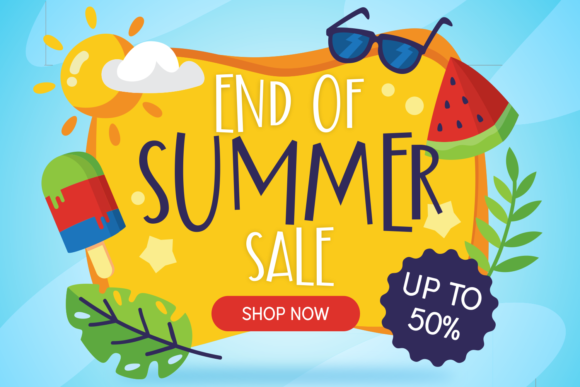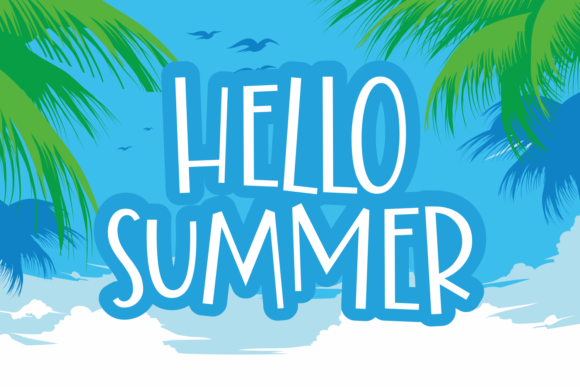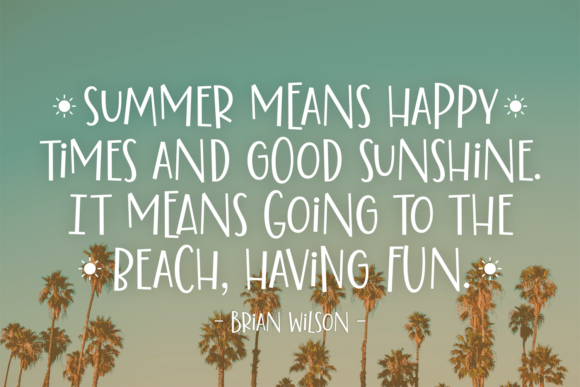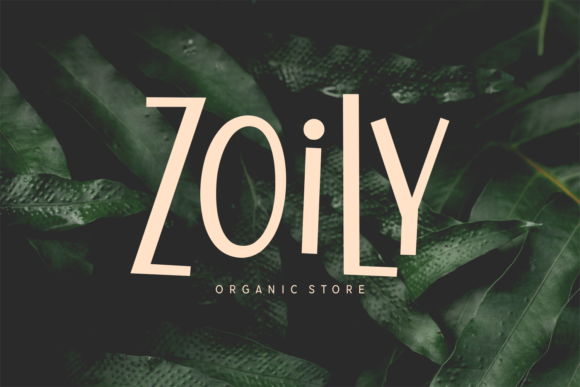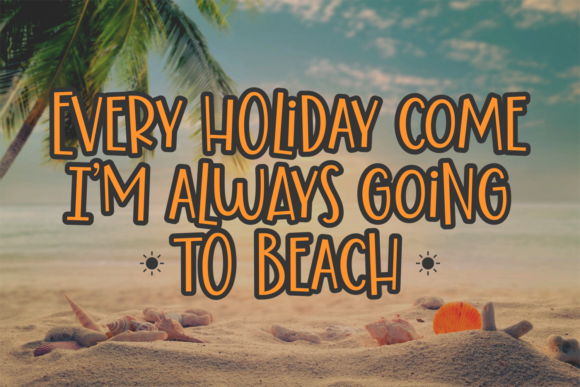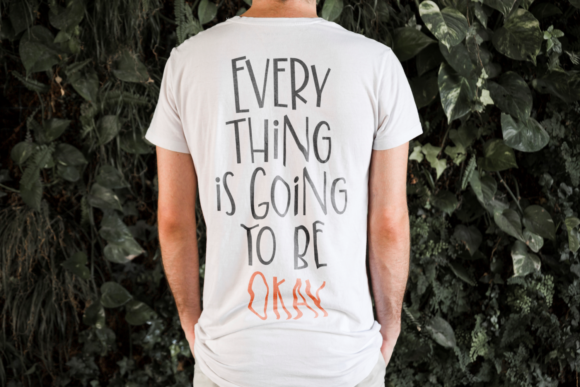
Introducing Before Summer Font: The Perfect Addition to Your Design Arsenal
Are you tired of using the same old fonts in your design projects? Look no further! Before Summer Font is a chic, fun, and quirky display font that’s perfect for adding a touch of personality to your branding projects, logos, t-shirt printing, creative products, and more.
What Makes Before Summer Font So Special?
Before Summer Font is a unique and eye-catching font that’s sure to make your designs stand out from the crowd. Its playful and whimsical style is perfect for designers and crafters who want to add a bit of fun and personality to their work. Whether you’re creating a logo, t-shirt design, or social media graphic, Before Summer Font is the perfect choice.
Key Features of Before Summer Font
- Chic and Quirky Design: Before Summer Font has a distinctive and stylish design that’s sure to turn heads.
- Display Font: This font is specifically designed for display purposes, making it perfect for headlines, titles, and other attention-grabbing elements.
- Versatile: Before Summer Font can be used for a wide range of design projects, from logos and branding to t-shirt printing and creative products.
- Easy to Read: Despite its playful style, Before Summer Font is easy to read and understand, making it perfect for use in a variety of contexts.
Before Summer Font is a must-have for designers and crafters who want to add a bit of personality to their work. Whether you’re creating custom t-shirts, designing social media graphics, or developing branding materials, this font is the perfect choice. Its unique style and versatility make it an essential addition to your design arsenal.
Tips for Getting the Most Out of Before Summer Font
- Use it as a Headline Font: Before Summer Font is perfect for use as a headline font, adding a touch of personality and style to your titles and headings.
- Experiment with Colors: Before Summer Font looks great in a variety of colors, so don’t be afraid to experiment and find the perfect hue for your design.
- Pair it with Other Fonts: Before Summer Font pairs well with a variety of other fonts, so try combining it with other styles to create a unique and interesting look.
Before Summer Font is a chic, fun, and quirky display font that’s perfect for adding a touch of personality to your design projects. Its unique style and versatility make it an essential addition to your design arsenal. Whether you’re a designer, crafter, or DIY enthusiast, Before Summer Font is a must-have for creating eye-catching and engaging designs.